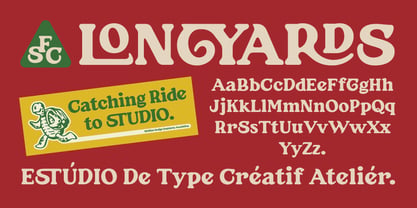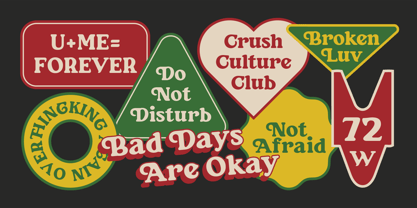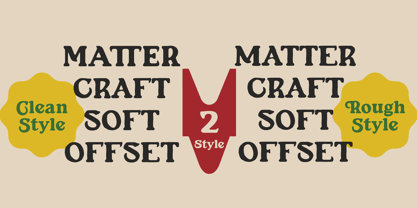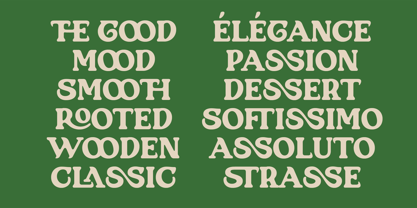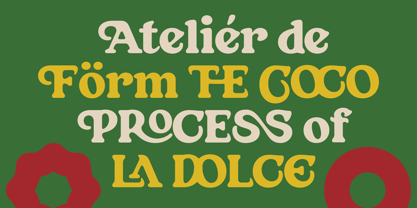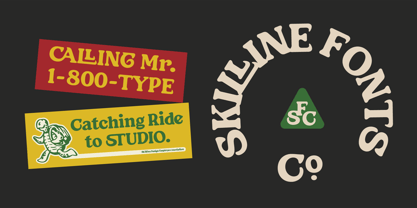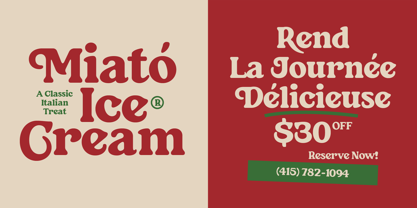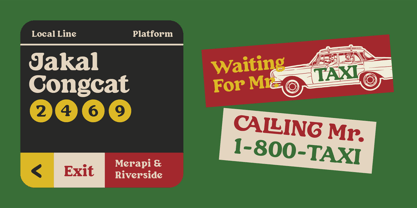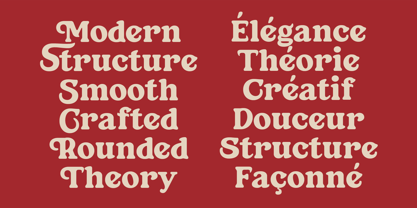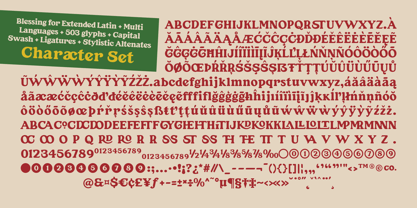
SFC Longyards
by Skilline Fonts Co.
The SFC Longyards Font Family was designed by Ahmad Nur Alfian and published by Skilline Fonts Co.. SFC Longyards contains 2 styles and family package options. More about this family
Longyards is a vintage rounded serif display font inspired by classic European signage, Italian deli typography, and retro editorial lettering. Designed with soft curves, bold structures, and nostalgic proportions, it delivers a warm yet confident visual presence. Its distinctive letterforms balance vintage charm with modern clarity, making Longyards perfect for branding, packaging, food labels, posters, signage, and lifestyle merchandise. With multilingual support, stylistic alternates, ligatures, and swash details, this font brings expressive character and professional versatility to any display project.
Designers: Ahmad Nur Alfian
Foundry: Skilline Fonts Co.